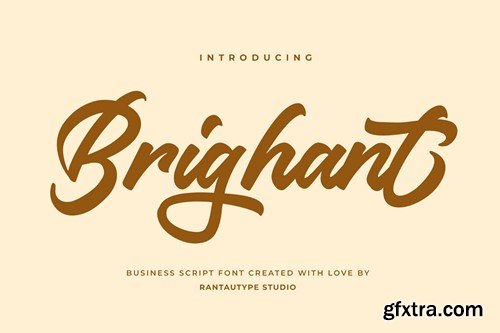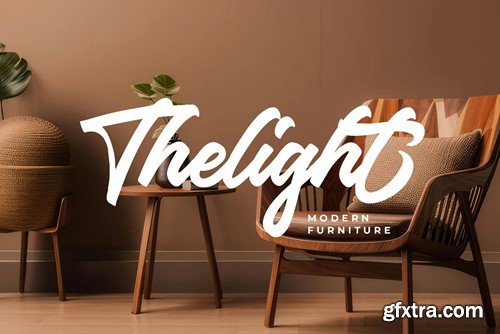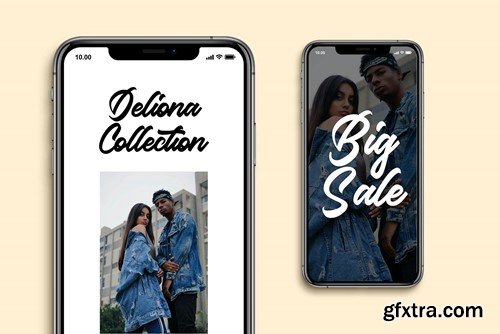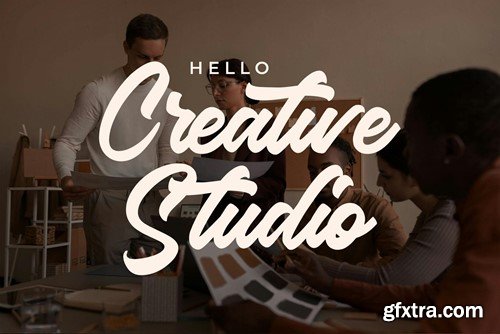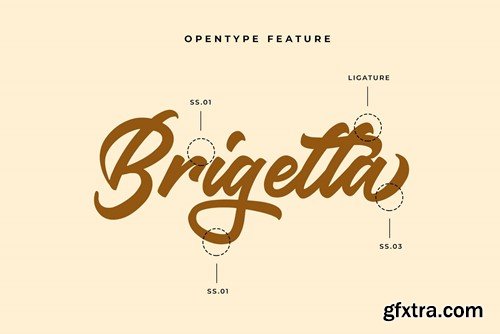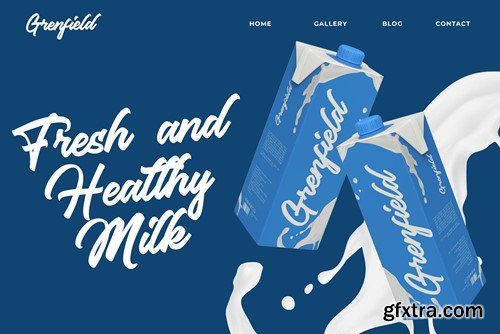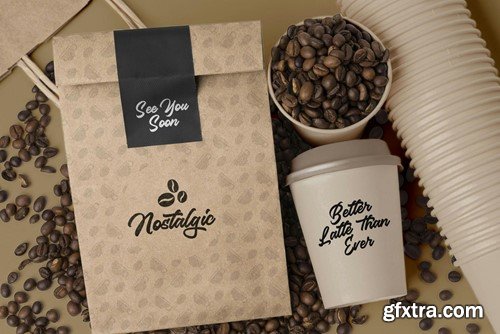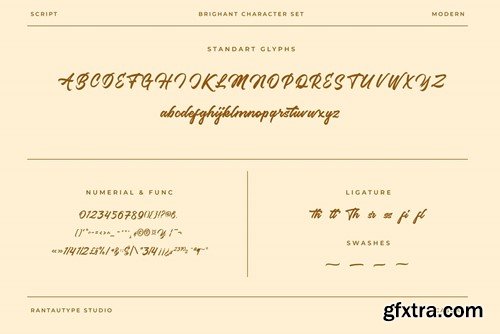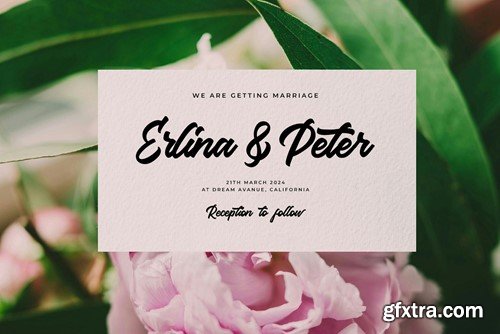
Bright Business Script Font HXNMGS7
Brighant is a business script typeface that looks modern with a soft curve and casual shape. Experience perfect visual form for your business to make it more stand out and memoriable with Brighant typeface, Belguri come with alternate, ligature and already support multilingual character. Brighant is a perfect choice for any creative endeavor, chic, lifestyle design such as logos, advertisements, watermark on photography, stationery, branding project, display and magazine, invitation, corporate brand, product design, label, business project and many other project need handwriting taste. What you have: Fonts include multilingual support for: Afrikaans, Albanian, Asu, Basque, Bemba, Bena, Breton, Chiga, Cornish, Dutch, English, Estonian, Filipino, Finnish, Friulian, Galician, Gusii, Indonesian, Irish, Italian, Kabuverdianu, Kalenjin, Kinyarwanda, Luo, Luxembourgish, Luyia, Machame, Makhuwa-Meetto, Makonde, Malagasy, Manx, Morisyen, North, Ndebele, Nyankole, Oromo, Portuguese, Quechua, Romansh, Rombo, Rundi, Rwa, Samburu, Sango, Sangu, Scottish, Gaelic, Sena, Shambala, Shona, Soga, Somali, Spanish, Swahili, Swedish, Swiss, German. Thank you for your purchase! Hope you enjoy with our font!